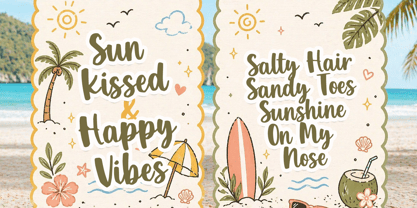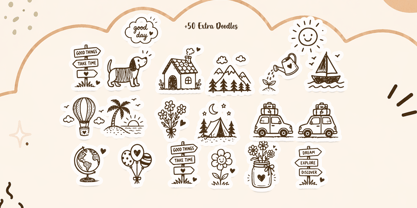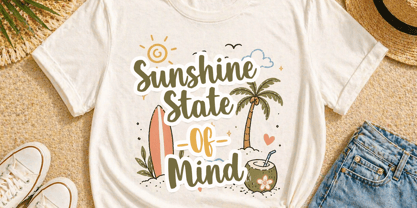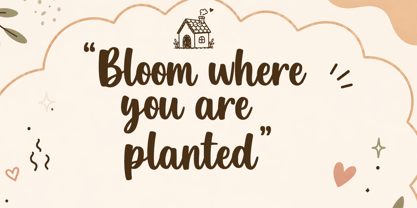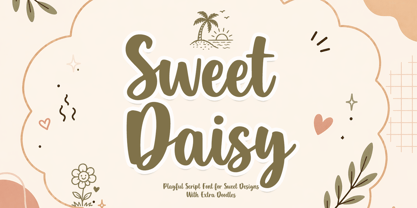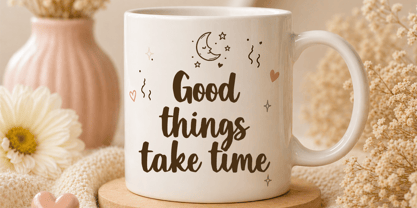
Sweet Daisy
by Cocodesign
The Sweet Daisy Font Family was designed by Muhammad Zaini and published by Cocodesign. Sweet Daisy contains 4 styles and family package options. More about this family
Sweet Daisy is a playful script font designed to infuse warmth, charm, and joyful energy into every creative project. With its smooth hand-drawn curves, bold rounded strokes, and a friendly natural flow, this font offers an inviting appearance that is both stylish and fun. It includes delightful doodle extras that enhance the decorative aspect, making each design feel lively, sweet, and memorable. Ideal for branding, logos, packaging, product labels, greeting cards, invitations, social media posts, posters, t-shirts, quotes, stickers, stationery, children's themes, cafe menus, beauty products, and modern handmade businesses. Whether utilized for bold headlines or cute decorative accents, Sweet Daisy provides a cheerful and versatile style that ensures every design stands out beautifully.
Designers: Muhammad Zaini
Foundry: Cocodesign